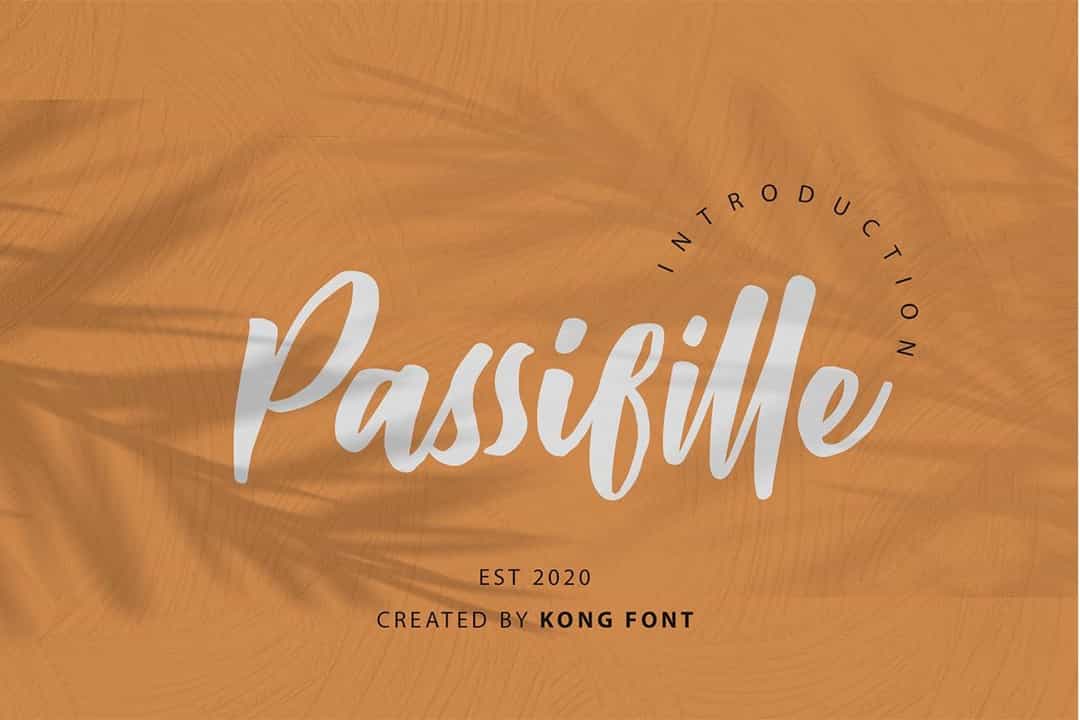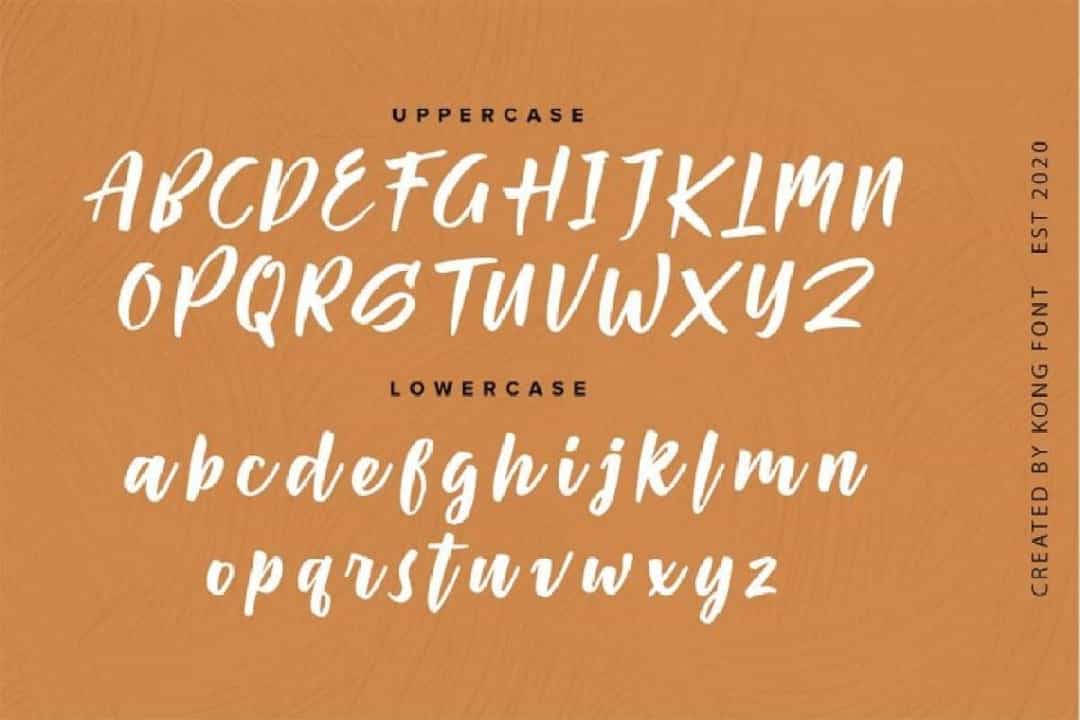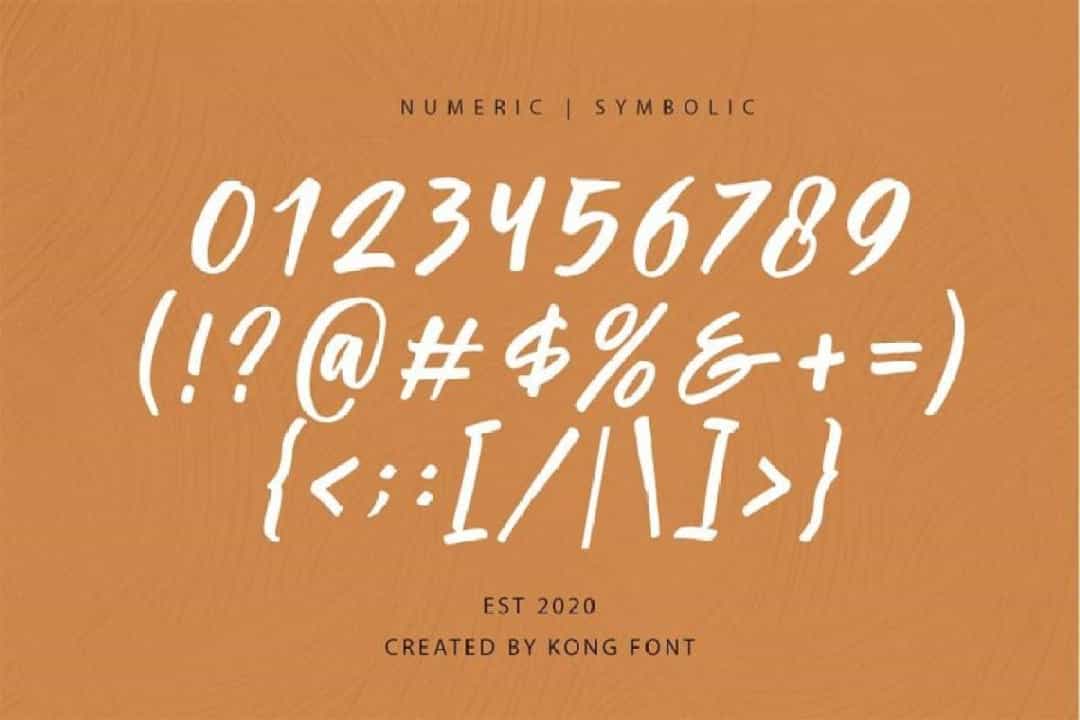
Discover Passifille Bold Script Font, part of the Handwritten Script collection—a versatile and unique font perfect for adding a personal touch to your projects. Download it for free and enjoy crafting designs with style, from invitations to social media posts. This font is available exclusively for personal use, giving you the freedom to create without limits. Unlock your creativity with Passifille Bold Script Font today!
Passifille is a basic and extremely informal font that is bold and slender. Passifille has three additional styles that you’ll enjoy The fonts are ideal for quotes, logos fashion patterns, invitations to weddings and much more. You can experiment with the ligature, different styles, swashes, etc. For creating your own personal letter.